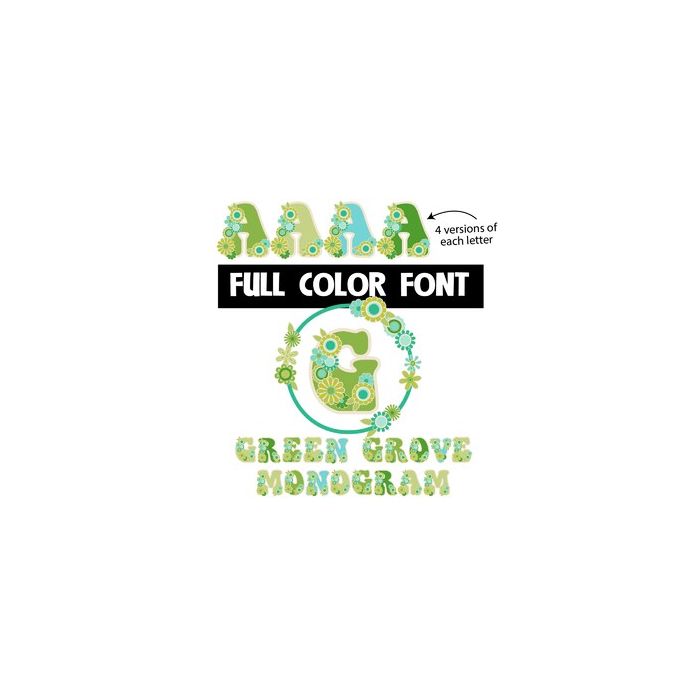
This full-color font features retro letters with green, decorative flowers. Not only is the lowercase a different color from the uppercase. Both cases have alt characters with two more colors you can access through your system's or Silhouette Studio's character map. The numbers 0-8 have frames you can use to round out your monogram.